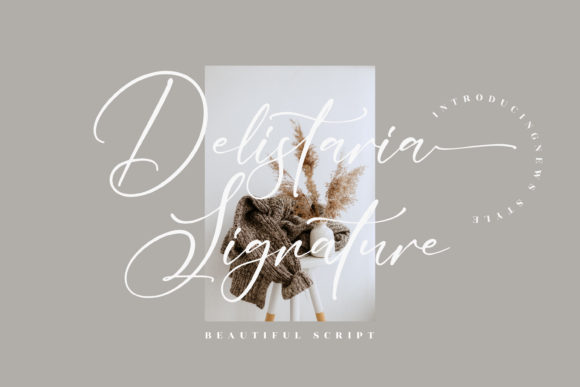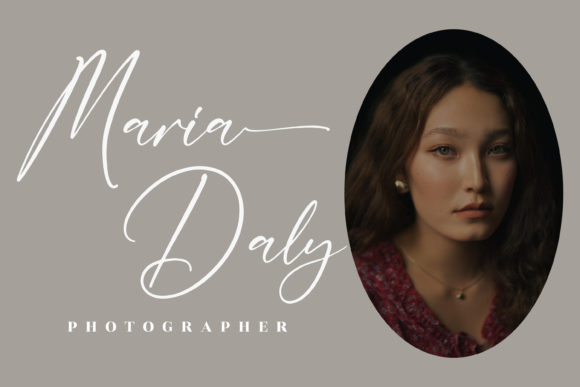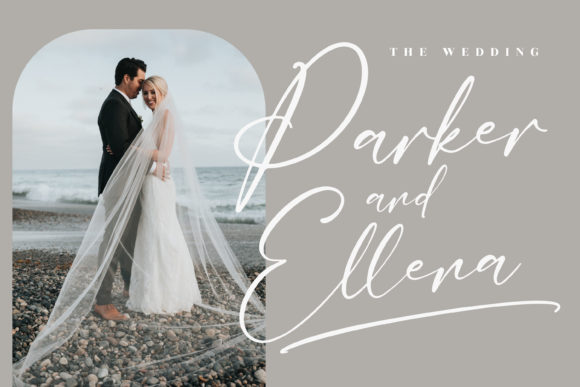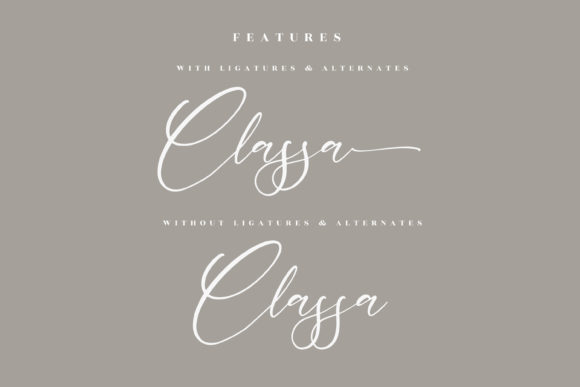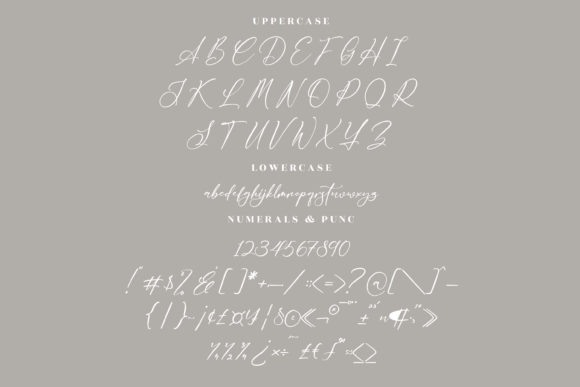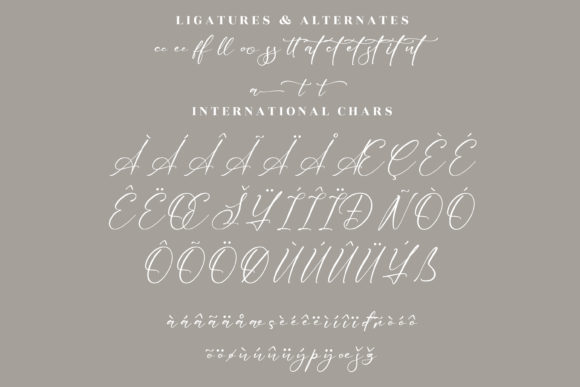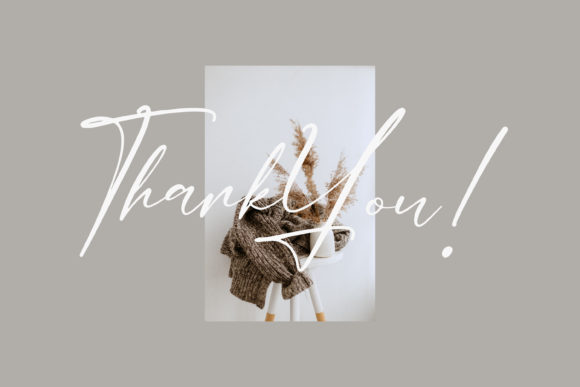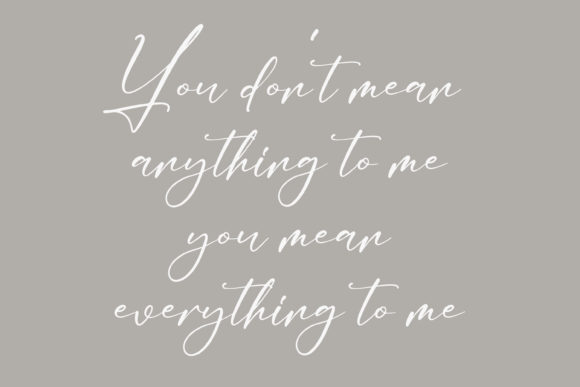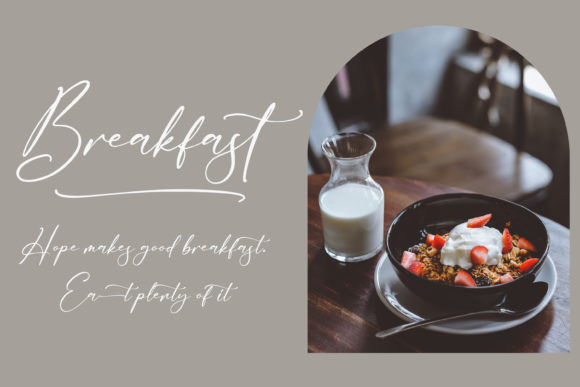
Delistaria Signature Font
Delistaria Signature is a delicate, elegant and flowing handwritten font. It has beautiful and well balanced characters and as a result, it matches a wide pool of designs. This font is PUA encoded which means you can access all of the glyphs and swashes with ease!